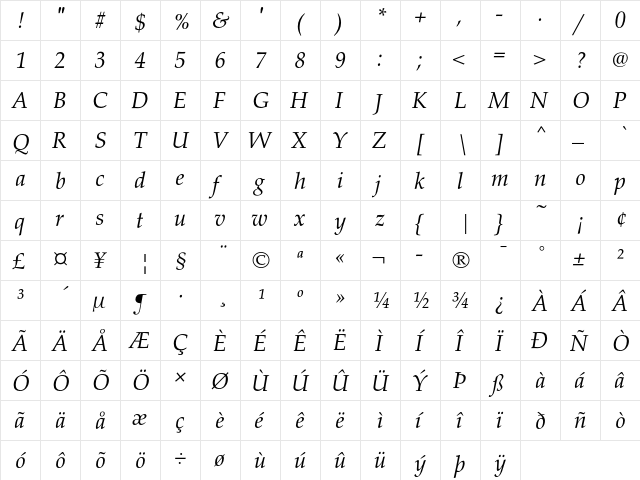
Palladio URW Regular Italic
Design Context for Palladio URW Typeface
Palladio URW takes a measured approach to typography — its balanced proportions and neutral character make it a reliable workhorse for both digital and print work. The slanted form adds forward momentum and visual energy.
Pro Tip: Use Palladio URW for emphasis, pull quotes, and subheadings where its slanted energy can add rhythm to the layout.